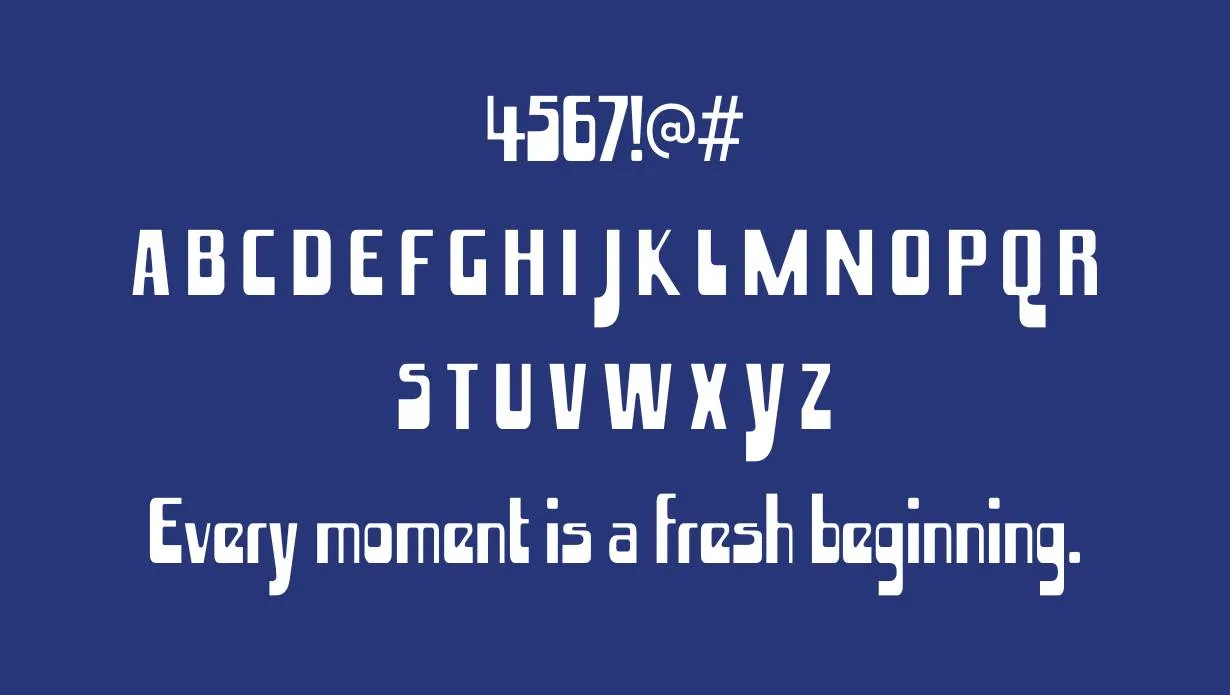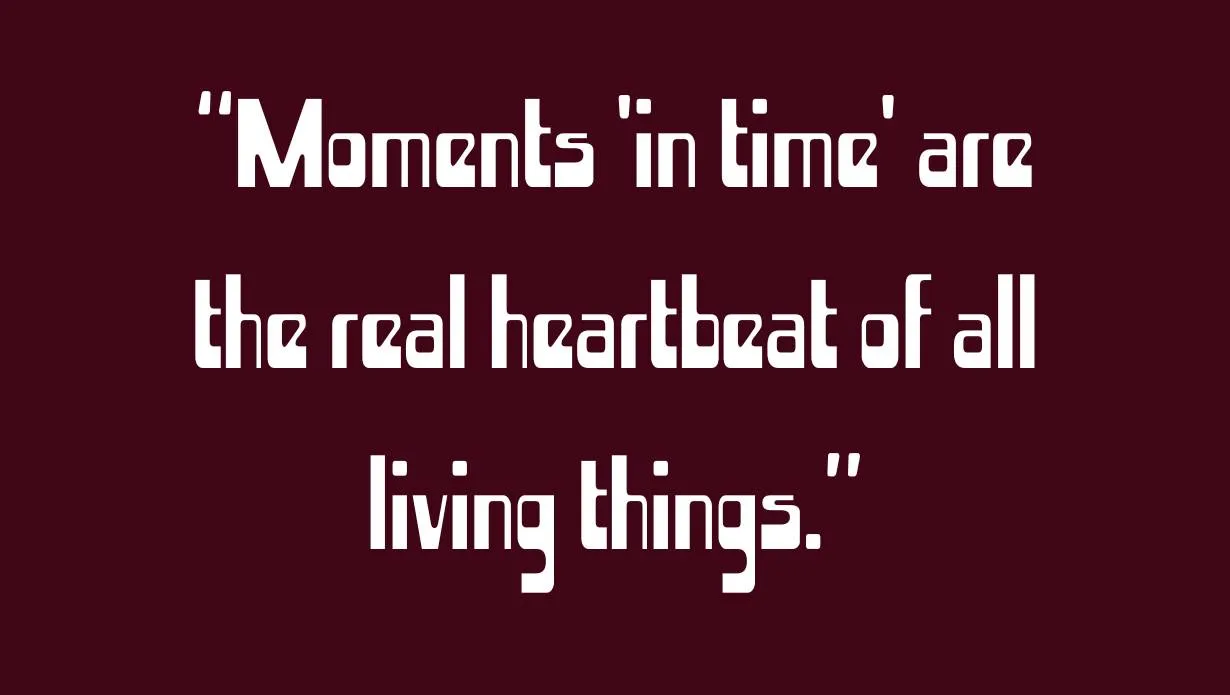
Typodermic Fonts created Hamma Mamma Jamma Font and it is a fancy text design. It is typically used for logotypes and graphic designs. This typeface has a beautiful structure and is frequently used for headings. It is a versatile typeface that works well for all kinds of designs.
You can achieve a really amazing look by combining this unique typeface with any other text style, to create eye-catching images. This kind of typeface works well with rough, dark vibe designs.
There are 94 characters in this wonderful design, including capital and lowercase letters, numerals, punctuation, and two special characters. It works well with more formal text designs. It has some really fascinating characteristics.
Hamma Mamma Jamma Font Family
This style is a contemporary, premium typeface that is a member of the fancy font family. It was made by, a well-known typography company.